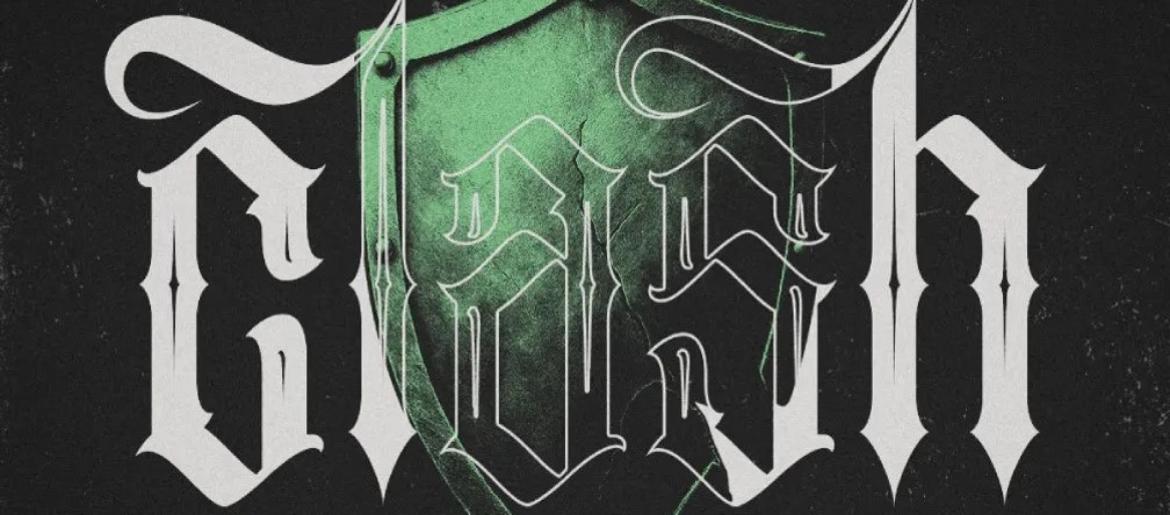
Pickyside Font
PICKYSIDE Font
Pickyside Font is a gothic Old English–style typeface inspired by classic blackletter lettering. With sharp angles and dramatic forms, it’s ideal for logos, tattoos, posters, album covers, and designs that require a bold, dark, and traditional medieval look.
➤ Font Name: Pickyside
➤ Designer: GraphicSauce
➤ Style: Gothic